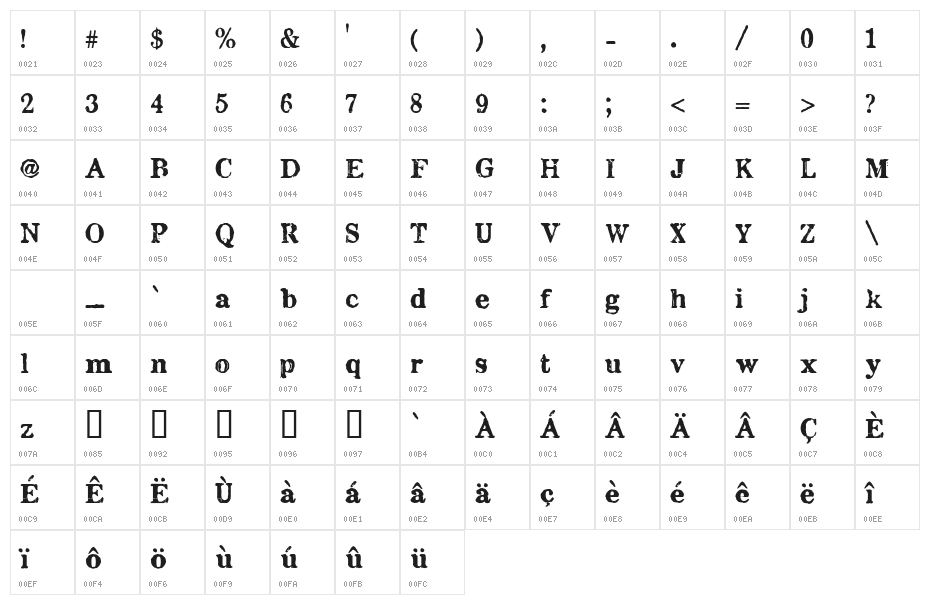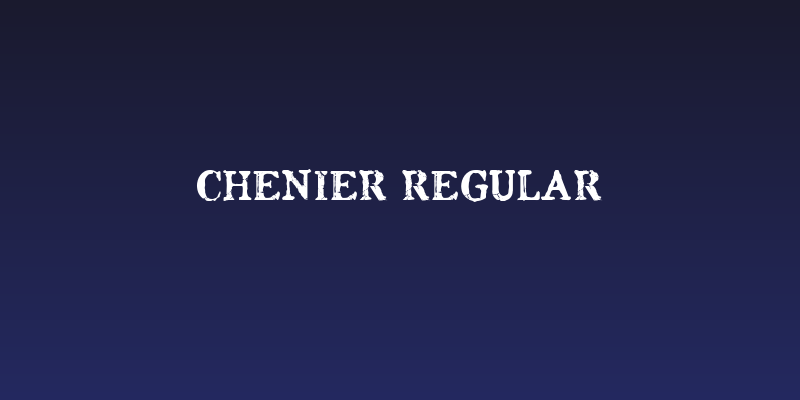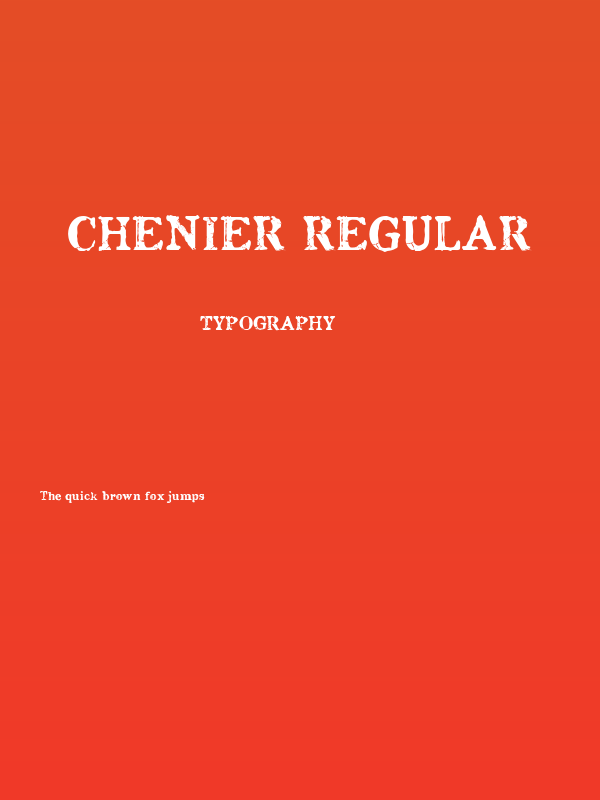
Chenier Regular Font
Chenier Regular Description
This font features a distressed, textured appearance that gives it a rugged and vintage feel. The uppercase and lowercase letters are bold and have a slightly uneven, weathered look, reminiscent of old printing techniques. The numbers and special characters follow the same style, adding to the cohesive aesthetic. The font's unique character makes it suitable for projects that require a touch of nostalgia or a handcrafted vibe. Its boldness ensures readability while the textured details add visual interest.
| Proposed Projects | Ideal for vintage-themed posters, album covers, branding for rustic or artisanal products, and any design needing a handcrafted touch. |